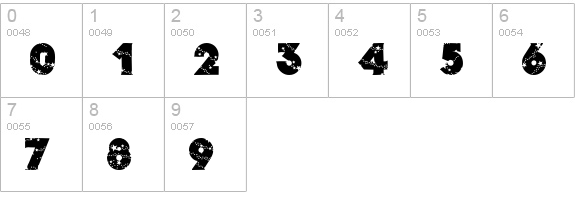
Stars Font Details
Introducing Stars font, a stunningly captivating typeface that will bring a touch of celestial beauty to your designs. With its elegant and intricate letterforms, Stars font is guaranteed to make your text shine like the stars in the night sky. This enchanting font captures the essence of the cosmos, with each letter carefully crafted to resemble shimmering stars, adding a touch of magic to any project. Whether you're designing a celestial-themed poster, a mystical book cover, or an ethereal logo, Stars font will effortlessly elevate your creations to new heights. What makes Stars font even more exceptional is that it is available for free download exclusively at FontsMarket.com. Yes, you heard it right – you can access this captivating typeface without spending a dime. Now, you can bring the beauty of the stars to your designs without breaking the bank. Designed with versatility in mind, Stars font seamlessly blends elegance and readability, making it suitable for a wide range of creative projects. Its unique style and versatility allow you to experiment and create stunning designs that are truly out of this world. So, why wait? Let Stars font be your guiding star in design. Download it for free today at FontsMarket.com and let your imagination soar to the far reaches of the galaxy. Unleash the power of the stars and watch your designs sparkle and shine with this mesmerizing typeface.